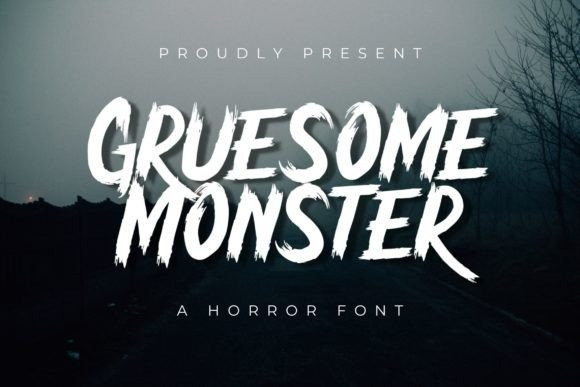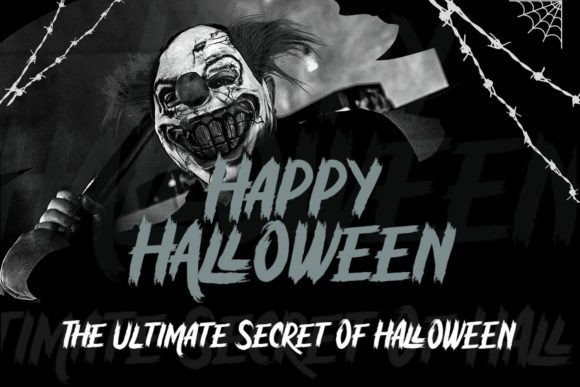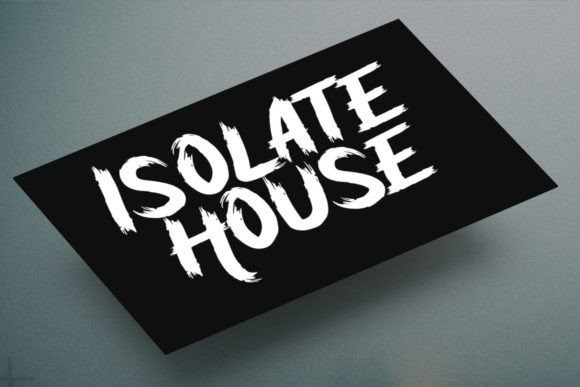
Gruesome Monster Font
Gruesome Monster is a modern and spooky brush display font. No matter the topic, this font will be an incredible asset to your fonts’ library, as it has the potential to elevate any creation.